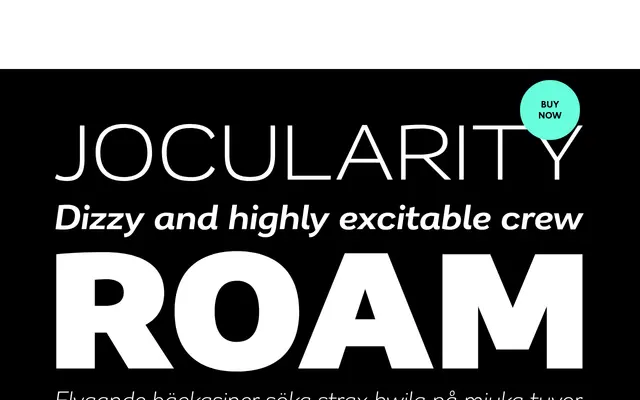
Remora Corp
The restrained, corporate-facing member of the Remora family, offered across five width sets each containing 14 styles.
Remora Corp pairs conservative letterforms with a comprehensive OpenType feature set including small caps, stylistic alternates and five style sets that allow selective borrowing of personality from its sibling, Remora Sans. Five width variants run from a condensed W1 to an extra-wide W5, giving each a full 14-style range spanning weights and italics. Latin coverage extends to West European, Central and East European, Baltic and Turkish languages.
Described explicitly as a humanist sans serif; Remora Corp is the conservative, corporate-facing variant of the Remora family, with restrained letterforms suited to business typography.